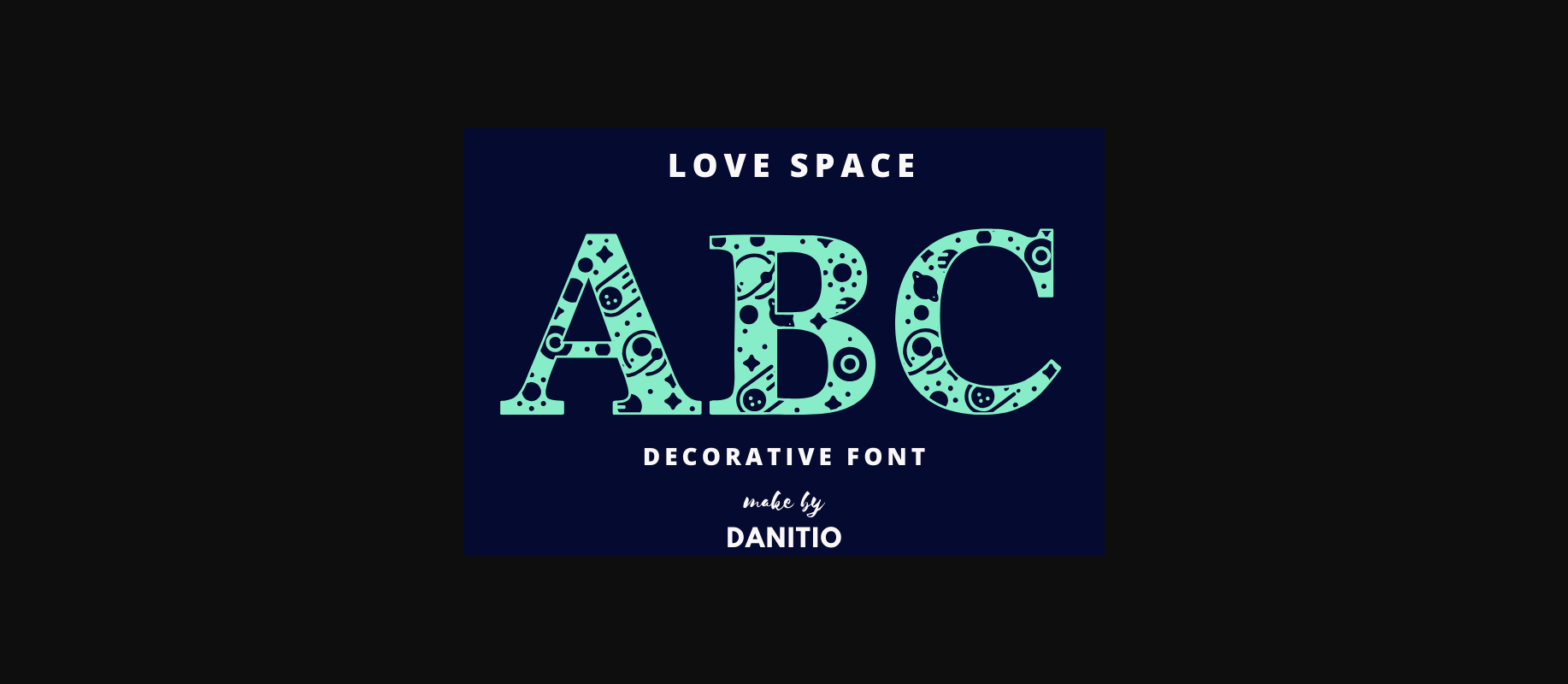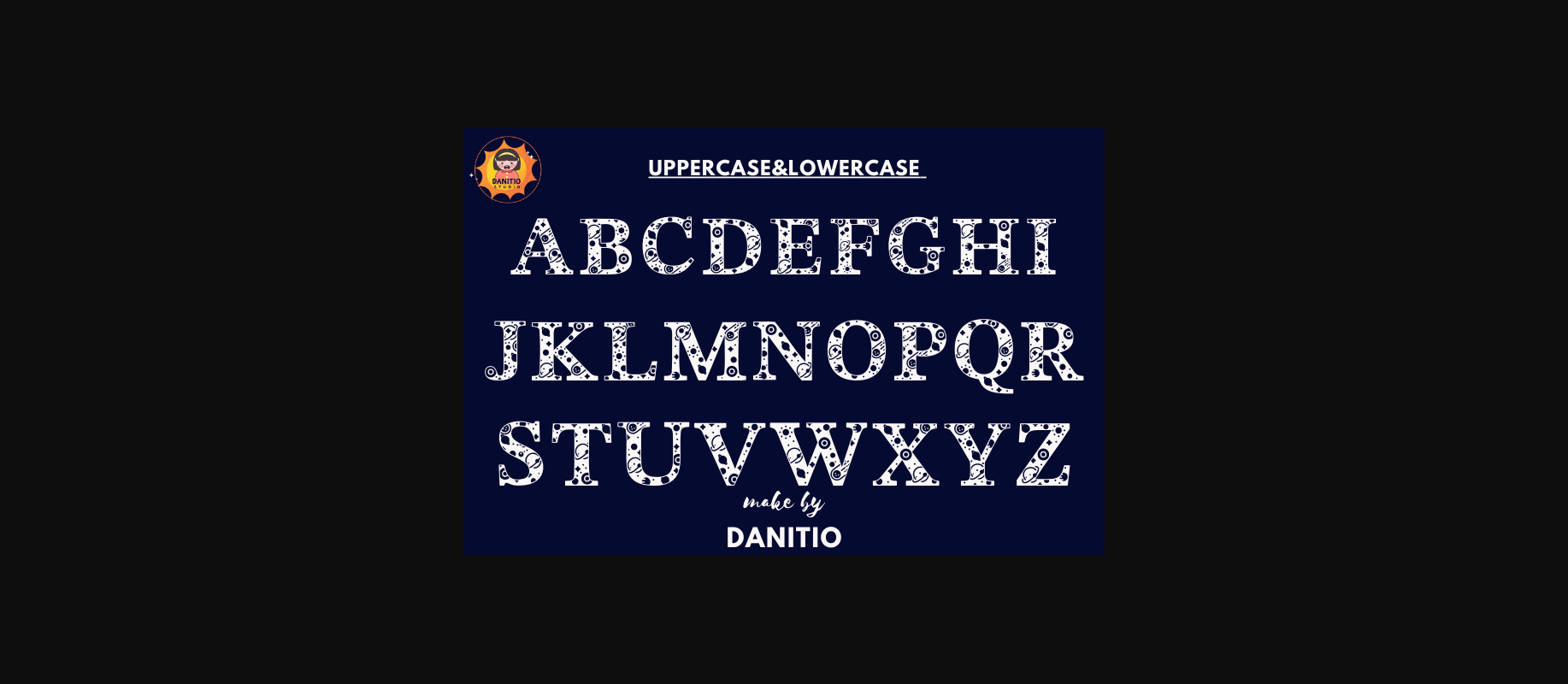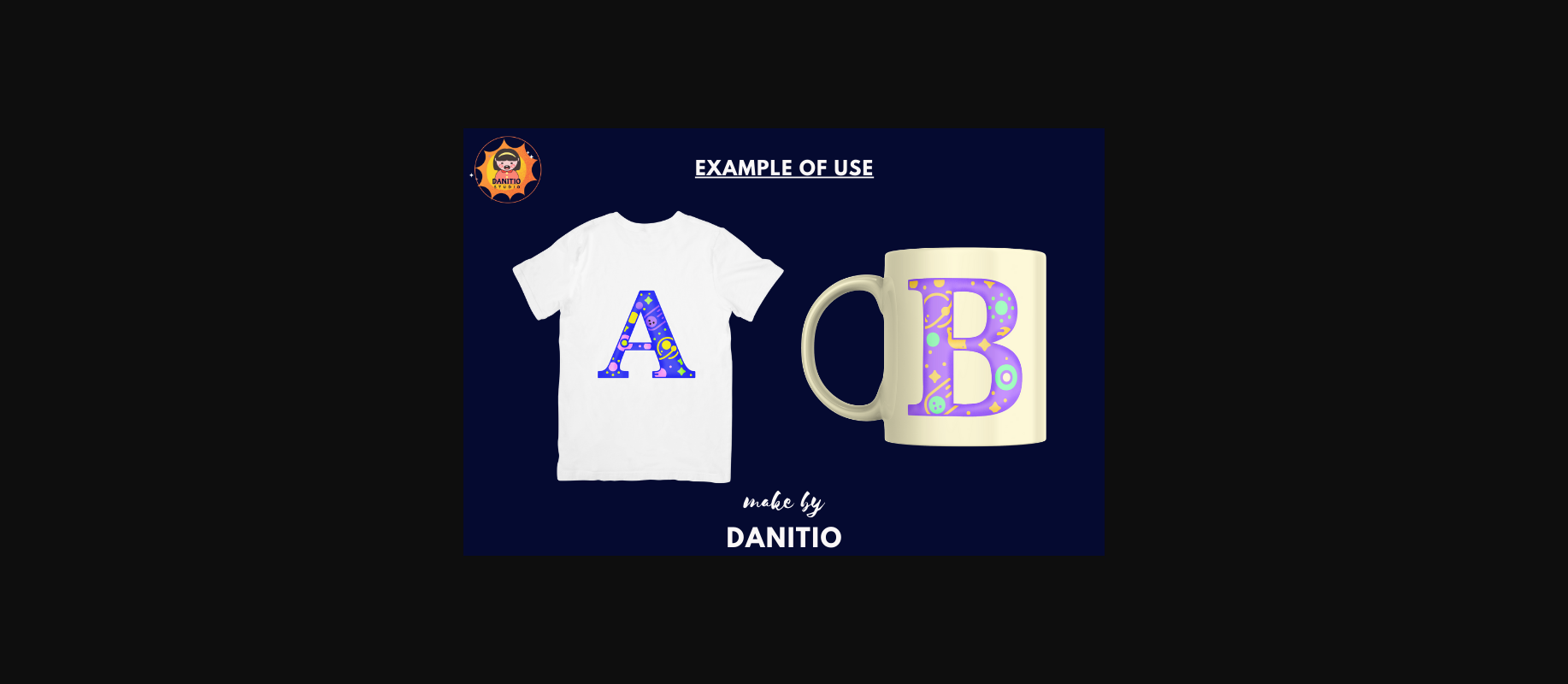
About Love Space Font
Love Space Decorativeā is a decorative font that adds uniqueness and charm to any design! With cute sun, planets, and big and small letters on the letters. Make the font more cute and brings a sense of fun and magic to any creative project. From childrenās books to greeting cards, posters, and more, let your imagination shine with this font.